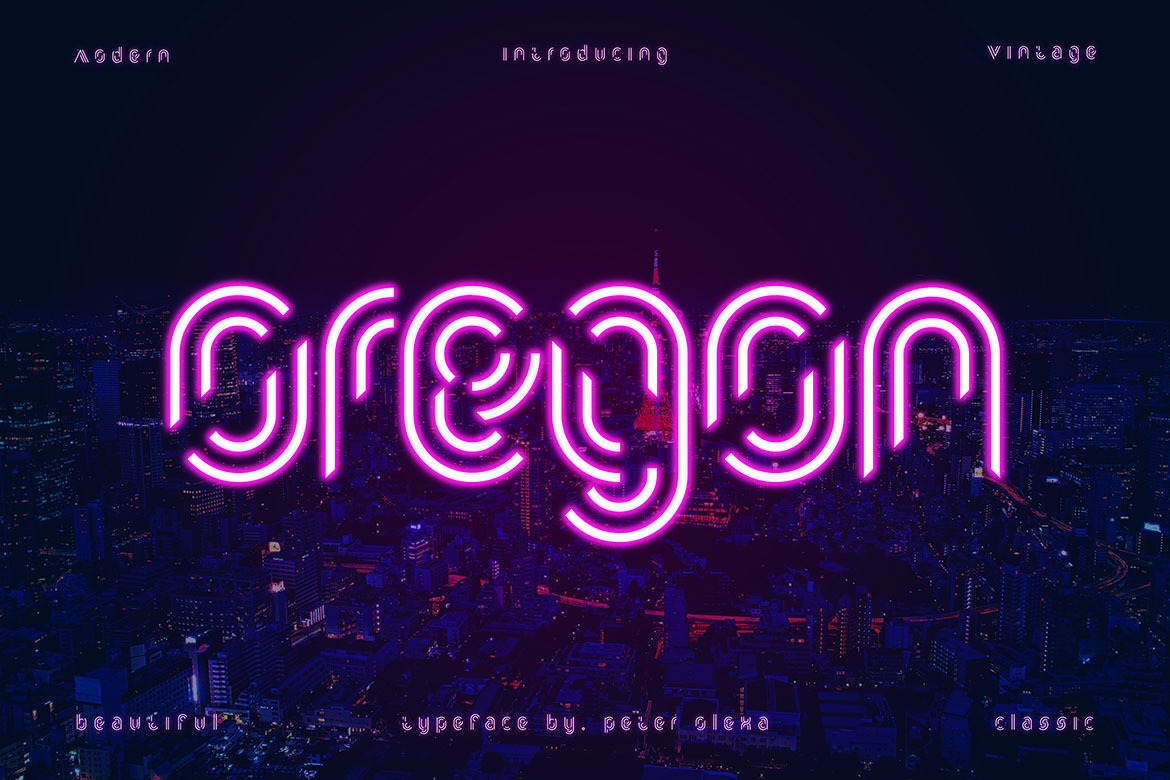
Oregon - Futuristic Font
Creative, modern & decorative font for your new projects. With cool linear or geometric style. Great for neon or futuristic projects.
- Great for modern & futuristic branding projects